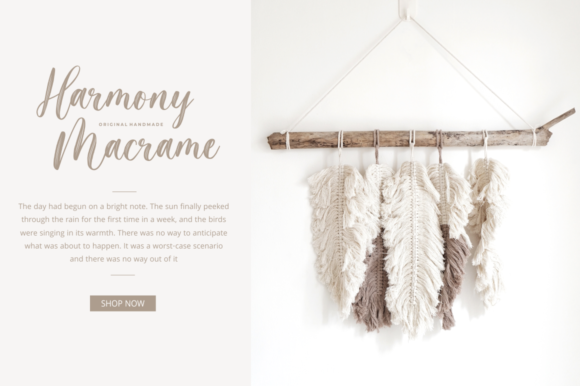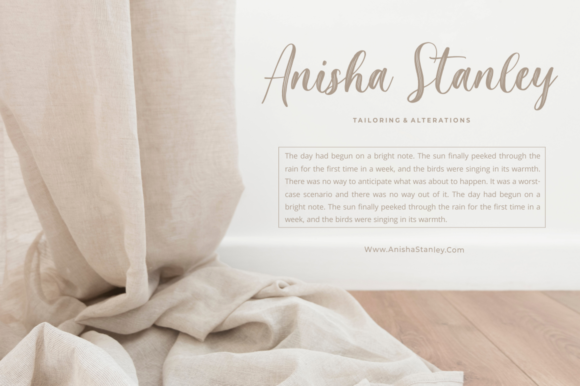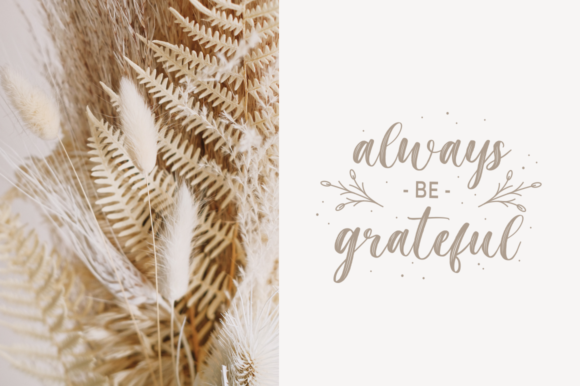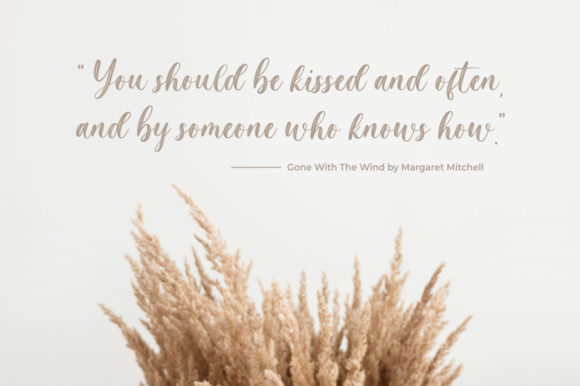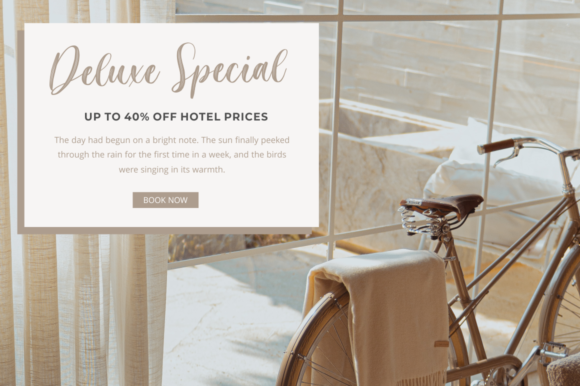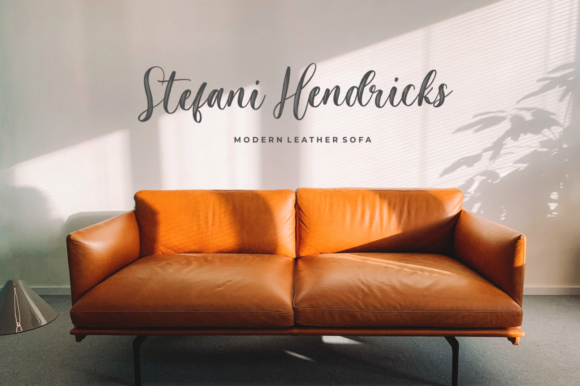
Introduction to Magista Brush Font
Magista Brush is a flowing handwritten font, described by an elegant touch, perfect for your favorite projects.
This beautiful and professional typeface is suitable for posters, headlines, block letters, subheadings, logo designs, branding and so much more .
Magista Brush Font offers exceptional quality and versatility, making it a valuable addition to your design toolkit. Whether you’re creating for personal projects or commercial use, Magista Brush Font delivers professional results.